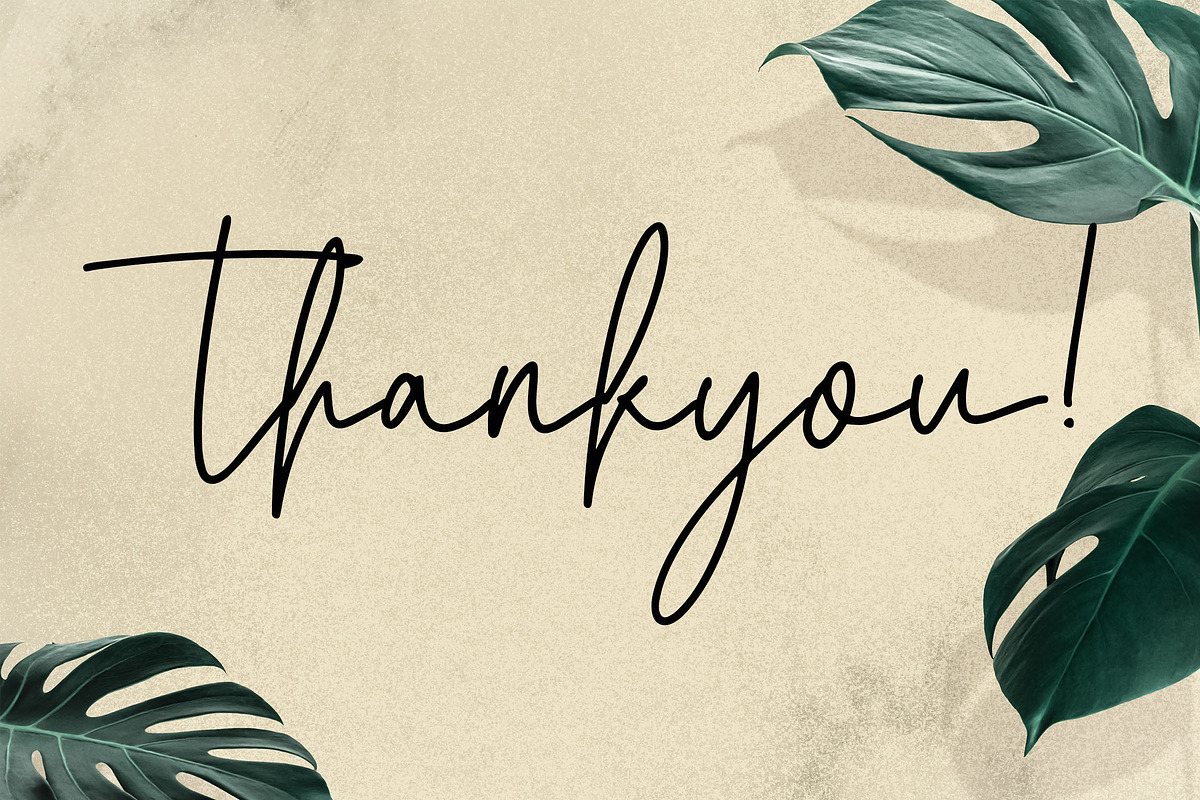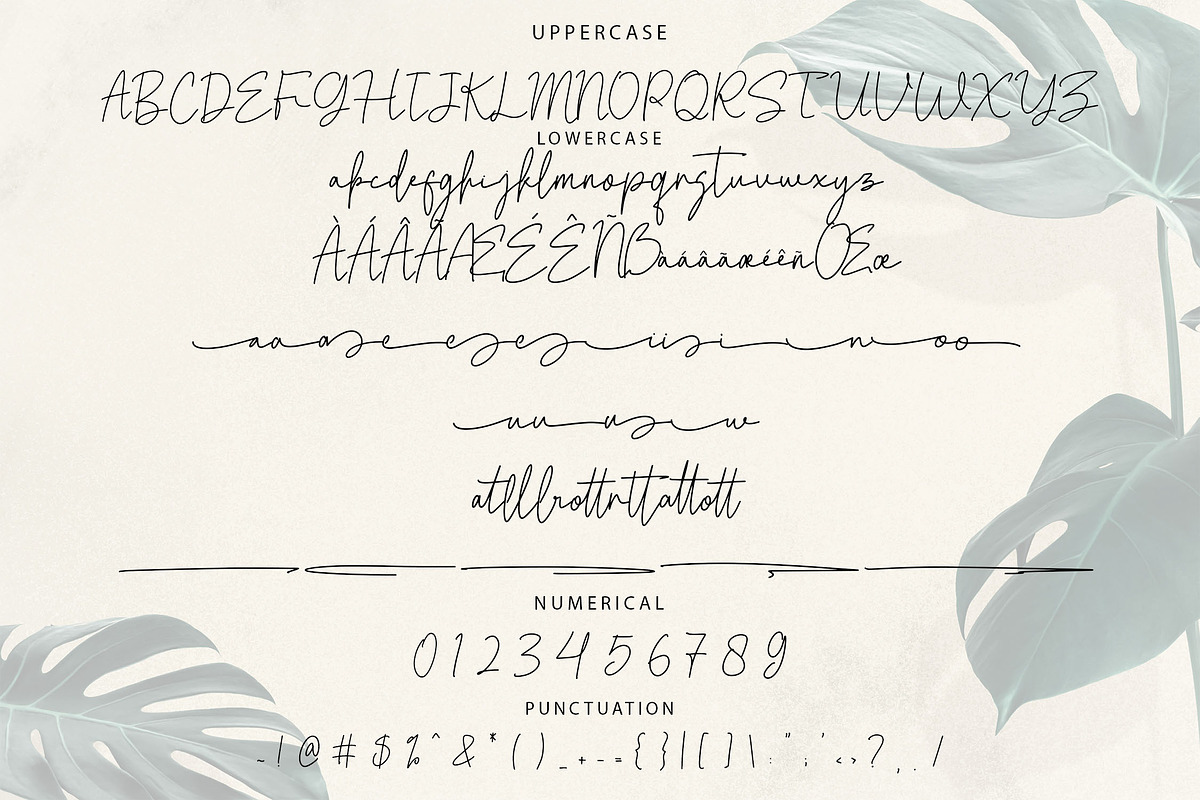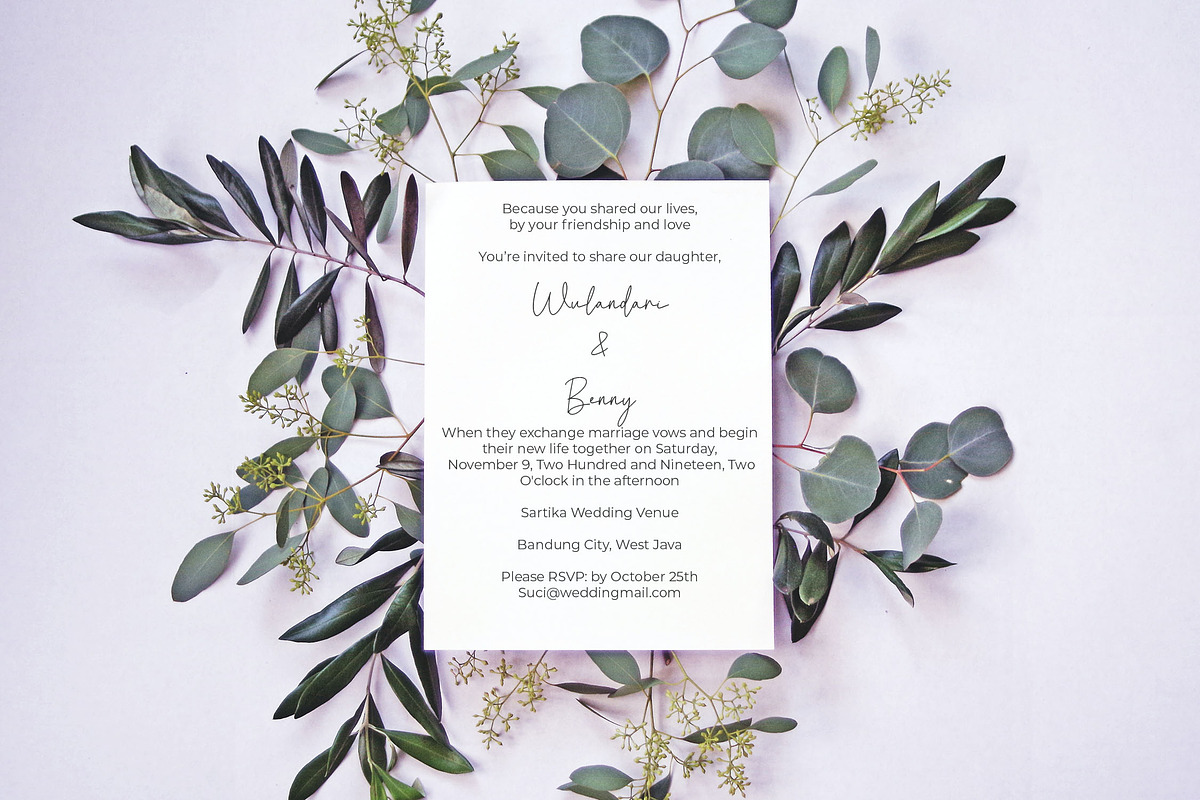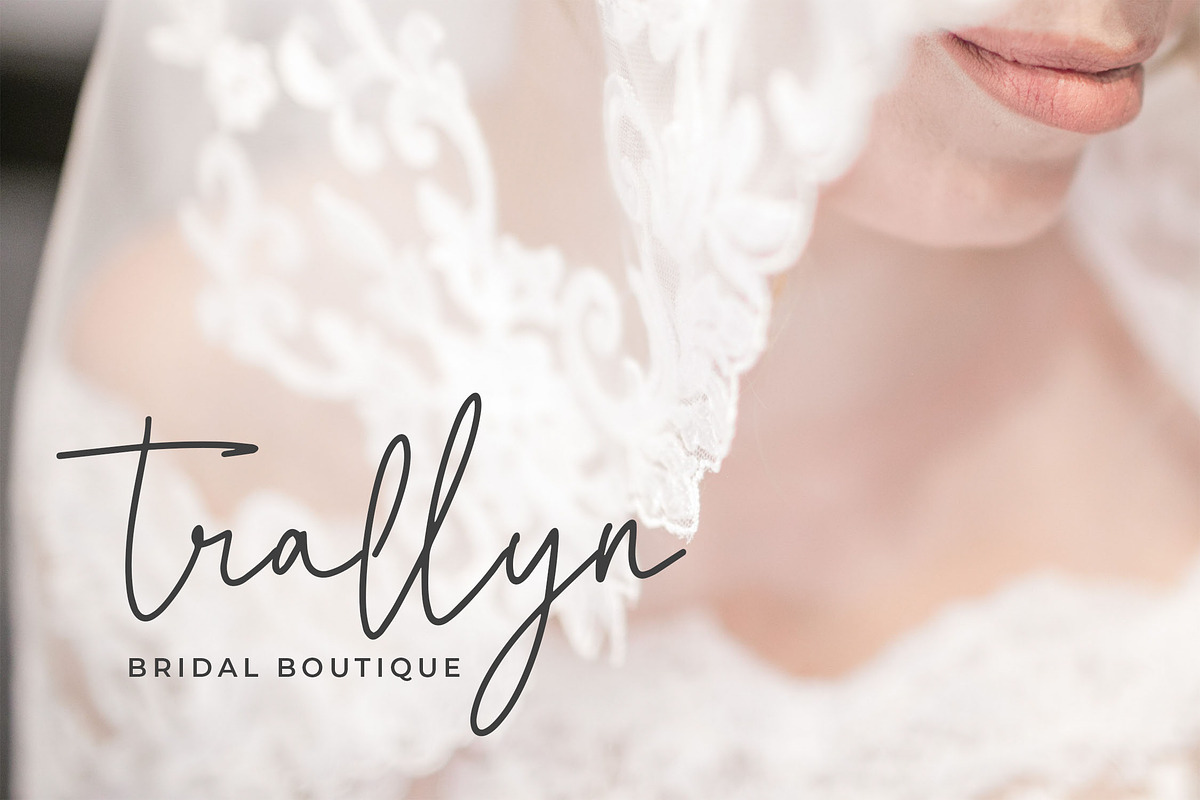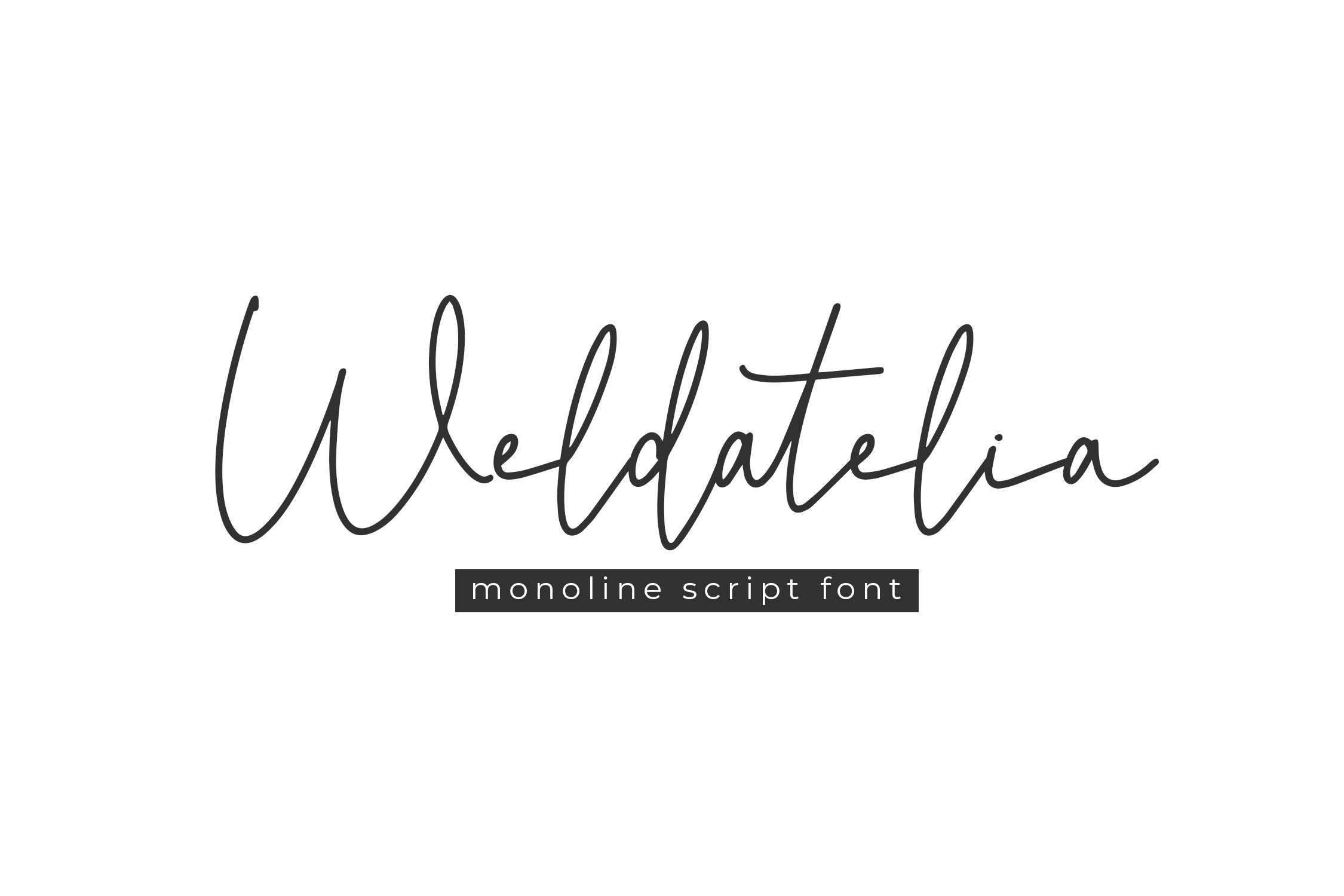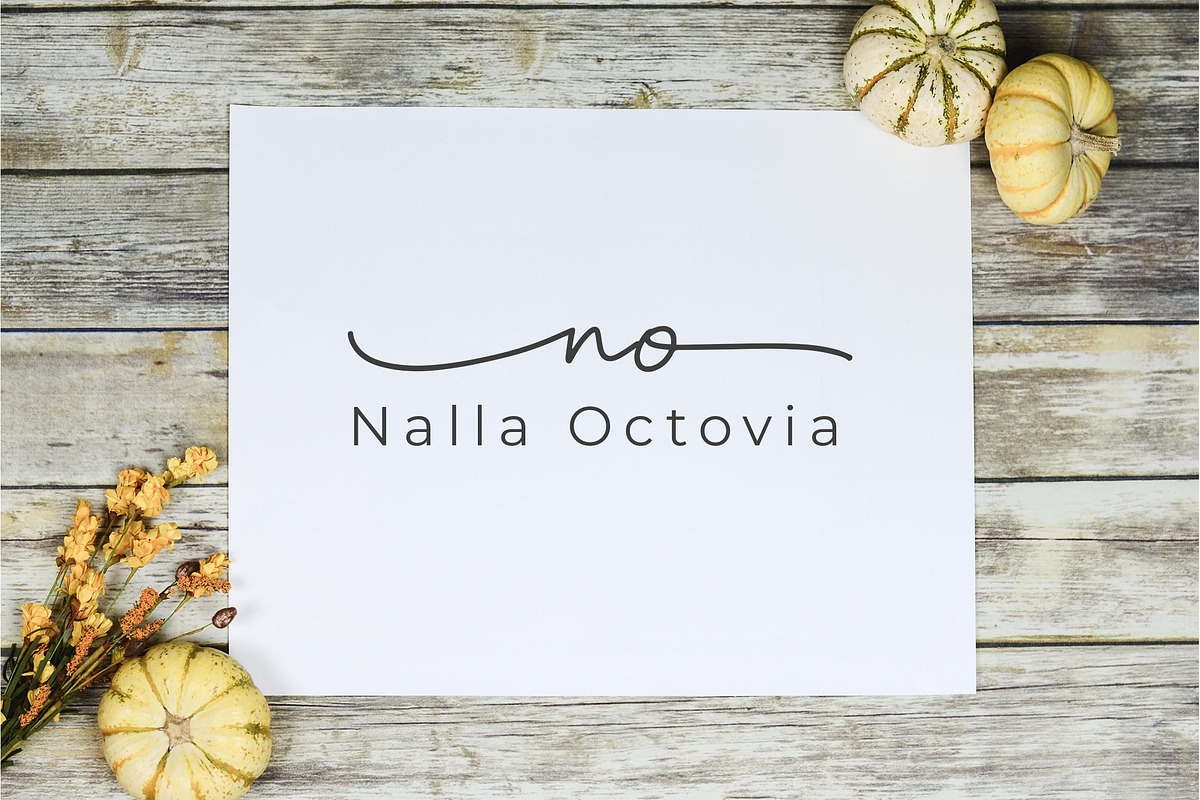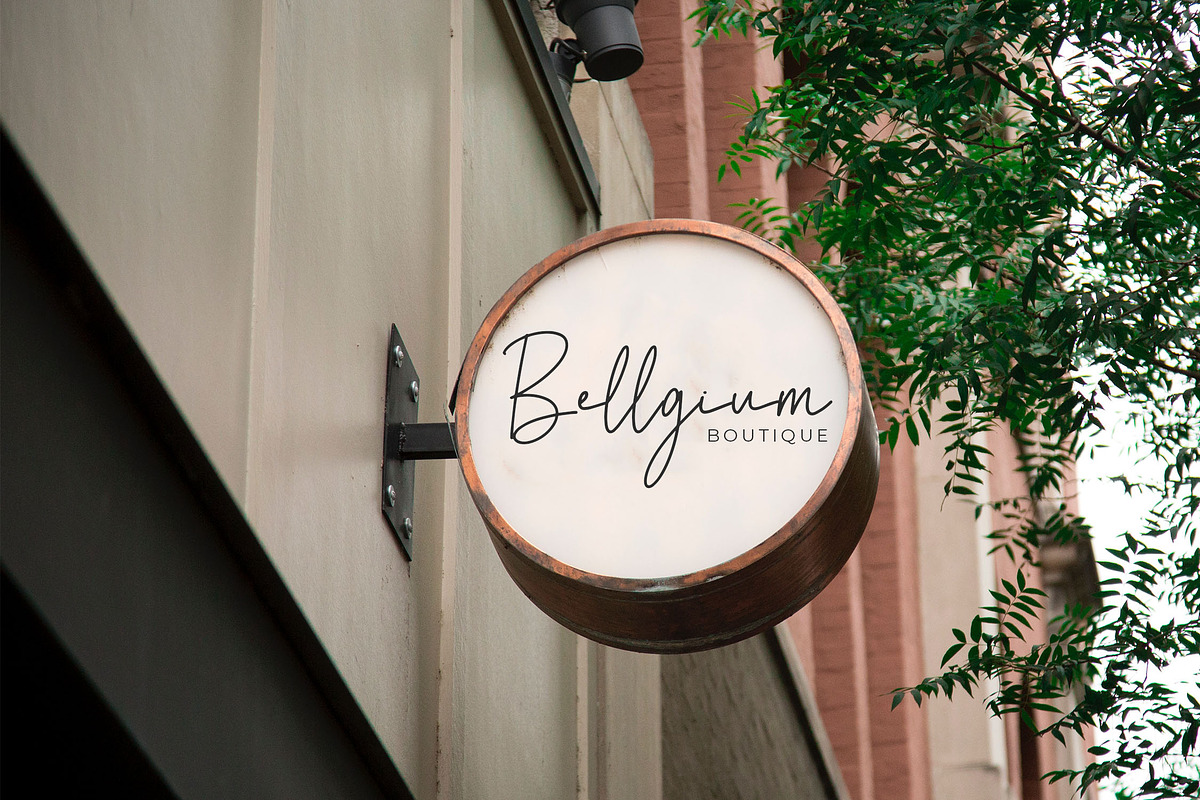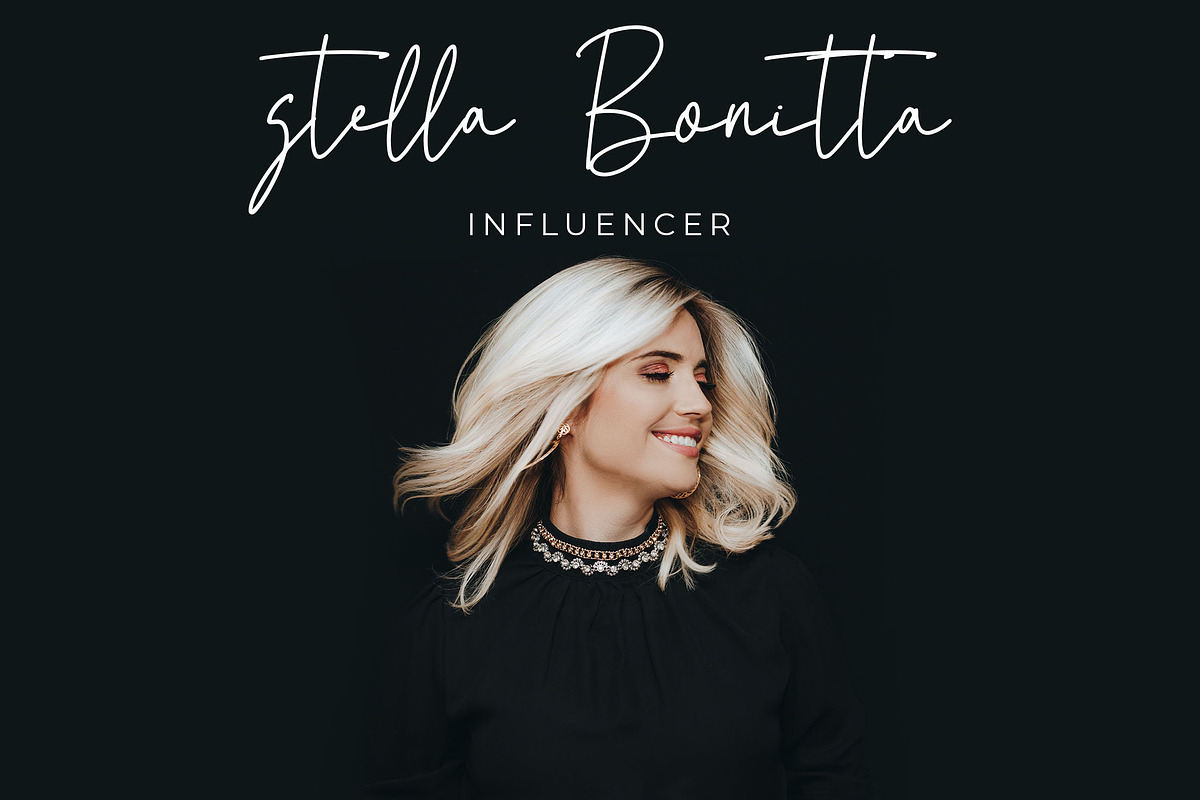
Weldatelia Monoline Script Font
Weldatelia Script Font
Introducing Weldatelia, an exquisite script font characterized by its elegant monoline style. Crafted with unique and beautifully shaped characters, Weldatelia adds a touch of sophistication to any design project, making it an ideal choice for enhancing the visual appeal of your products.
- Stylish Ligatures for seamless connections between letters
- Stylistic Alternates for added versatility in your designs
- Decorative Swashes to embellish your text
- Multilingual Support for global accessibility
Elevate your typography with Weldatelia and watch your designs come to life!